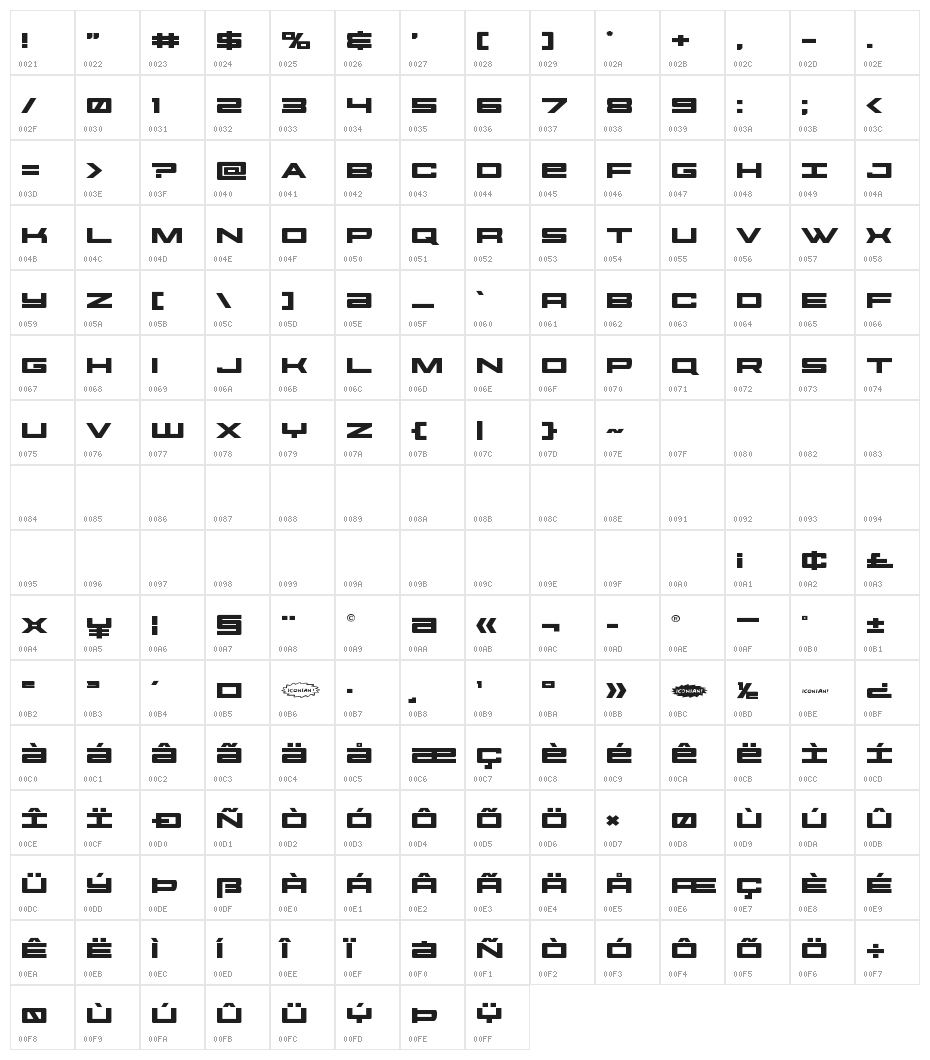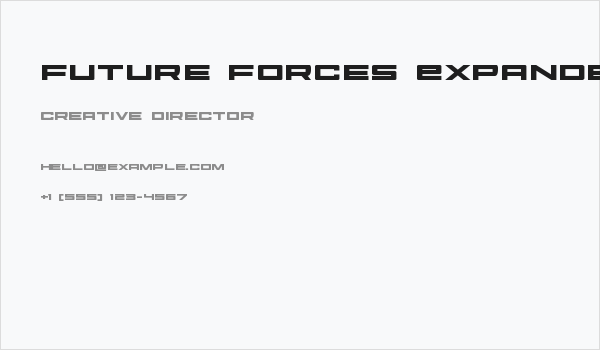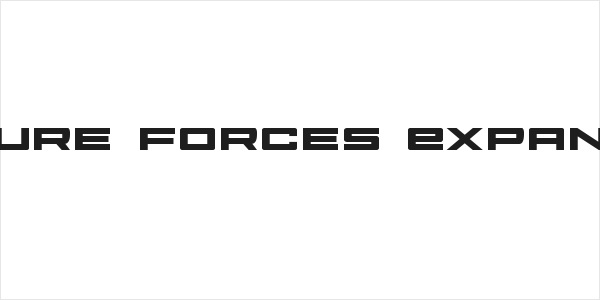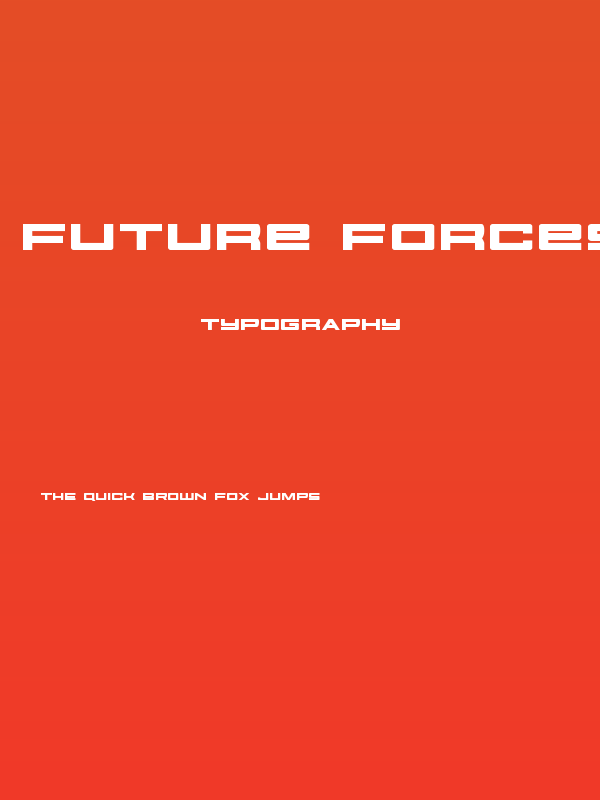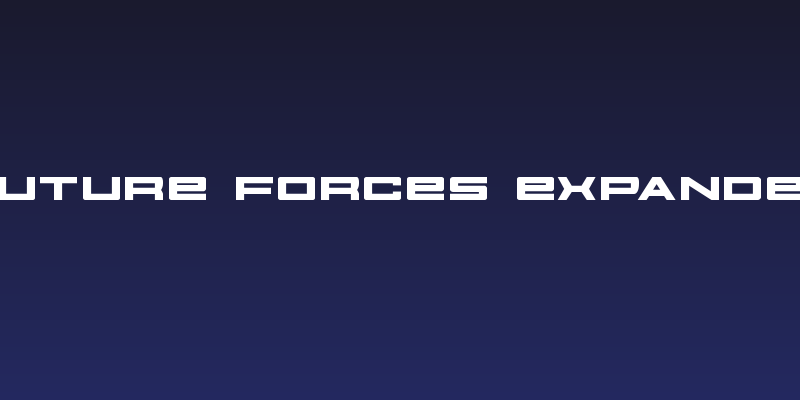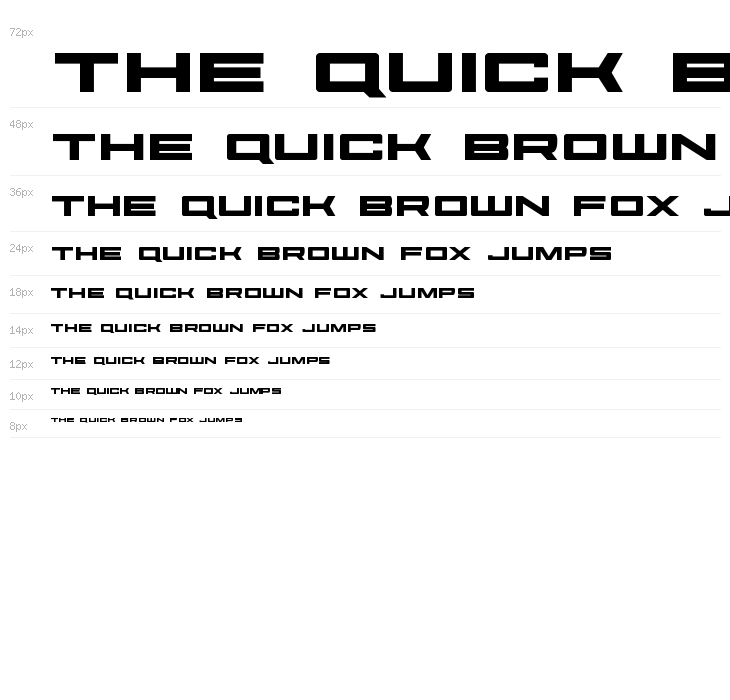
Future Forces Expanded Font
Future Forces Expanded Description
This font features a futuristic and bold design with geometric shapes and sharp angles. The characters are wide and have a strong presence, making them ideal for impactful visual statements. The uppercase and lowercase letters share a consistent style, with a uniform thickness throughout. The numbers and special characters maintain the same bold and angular aesthetic, ensuring a cohesive look across all text elements. The font's distinct style is reminiscent of sci-fi themes, making it suitable for projects that require a modern and technological feel.